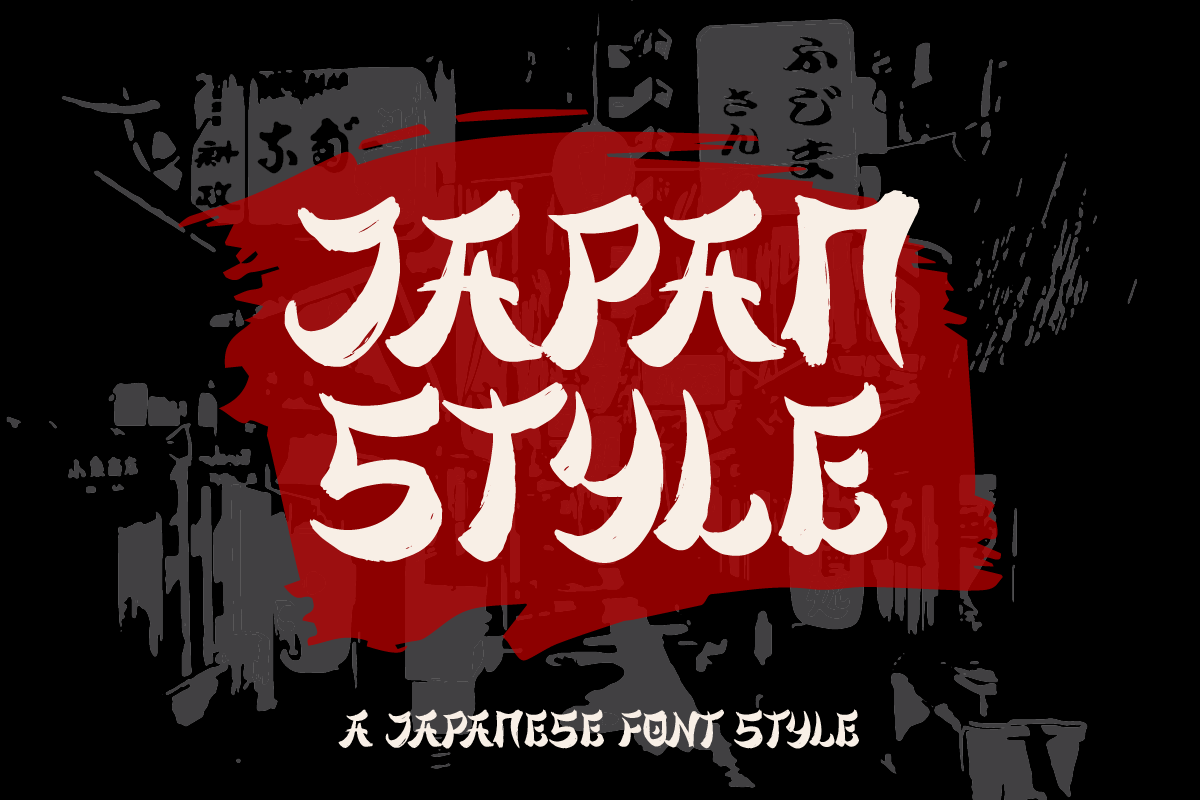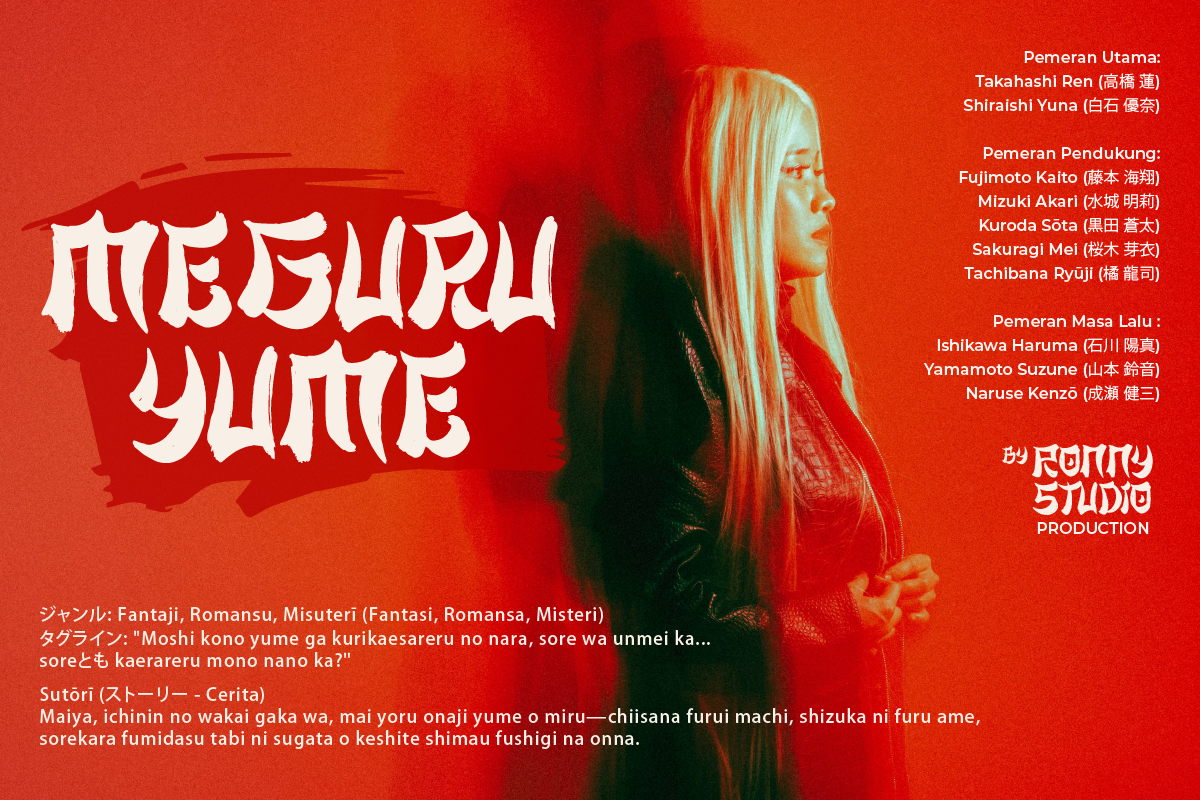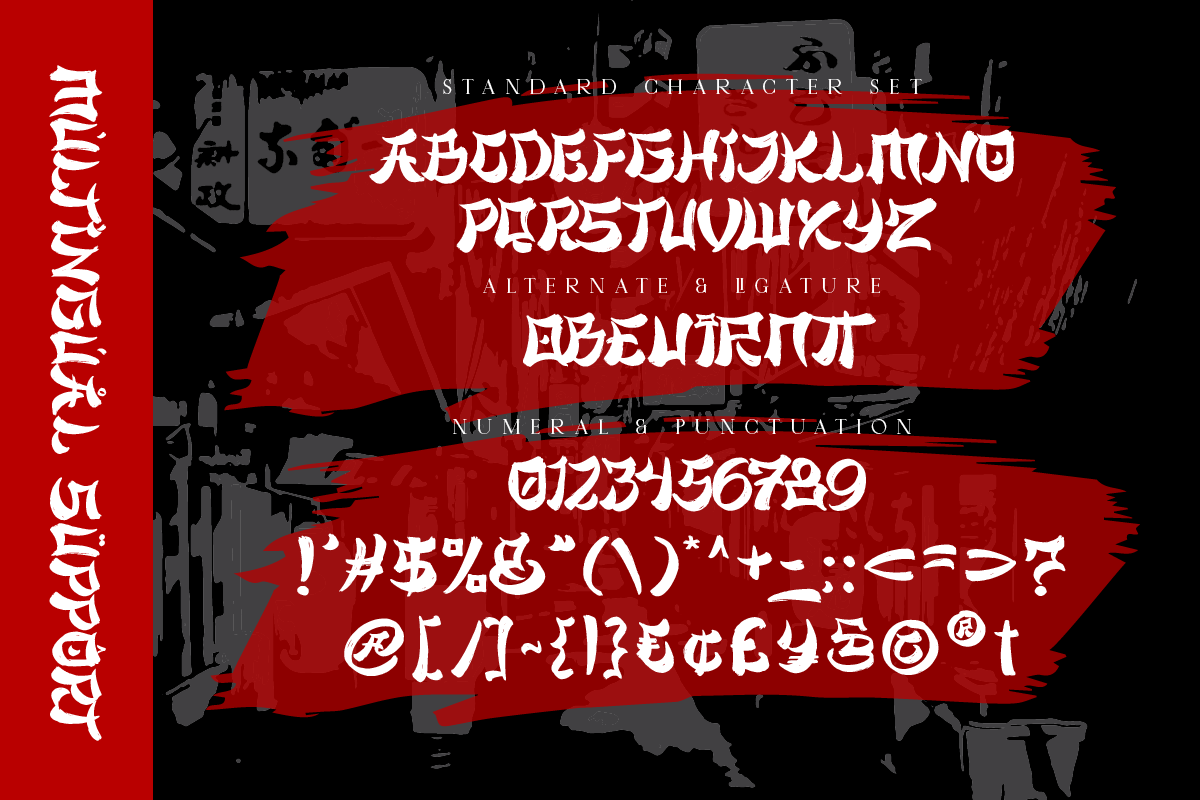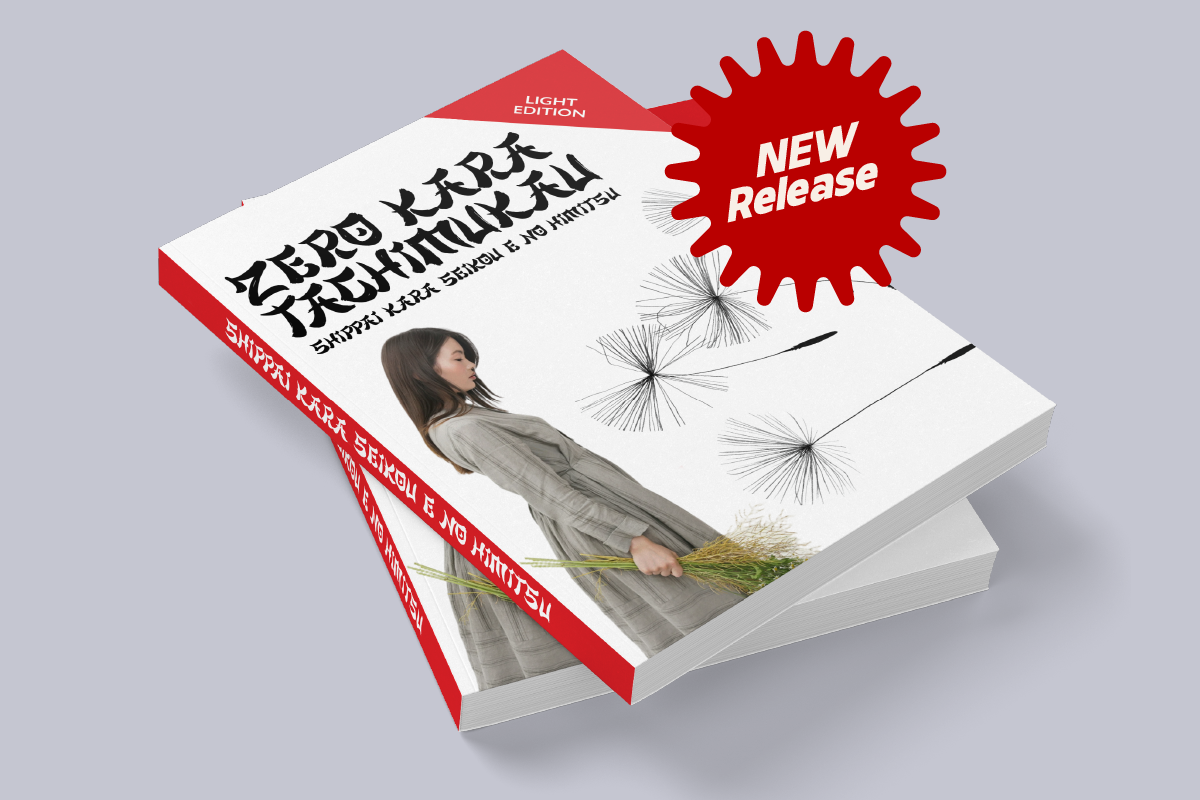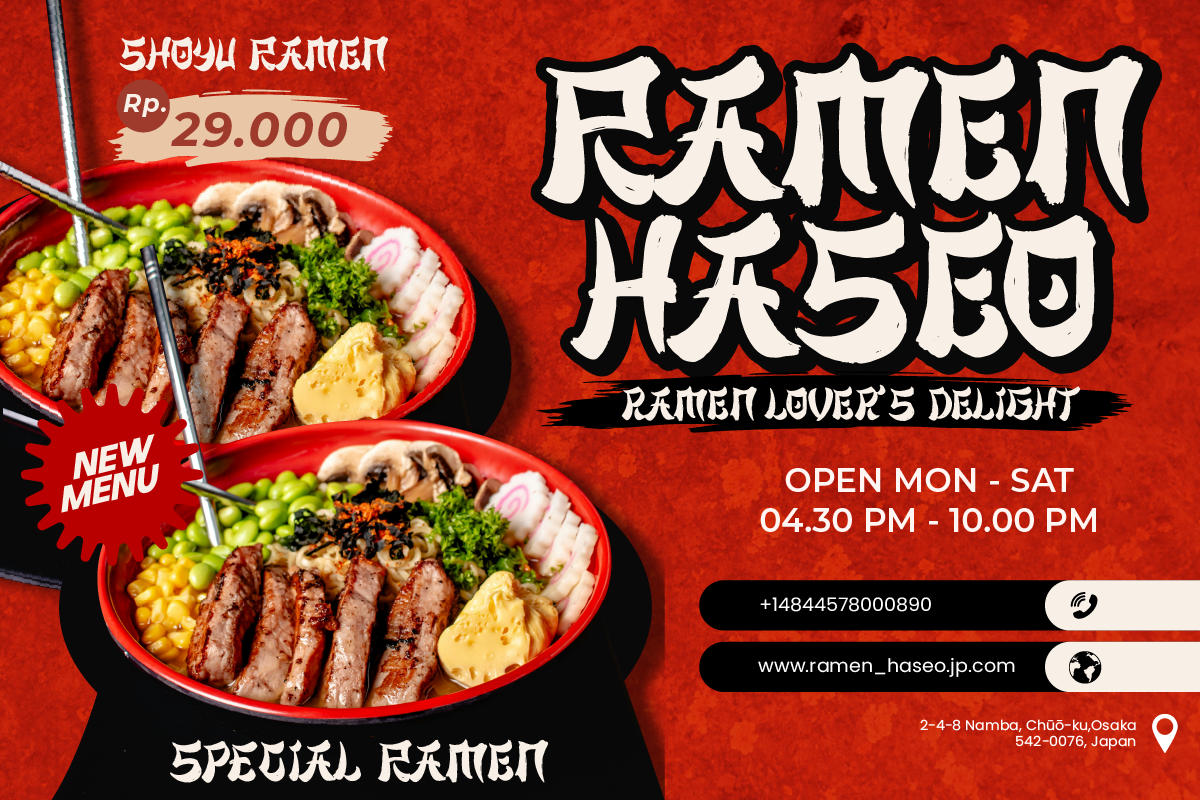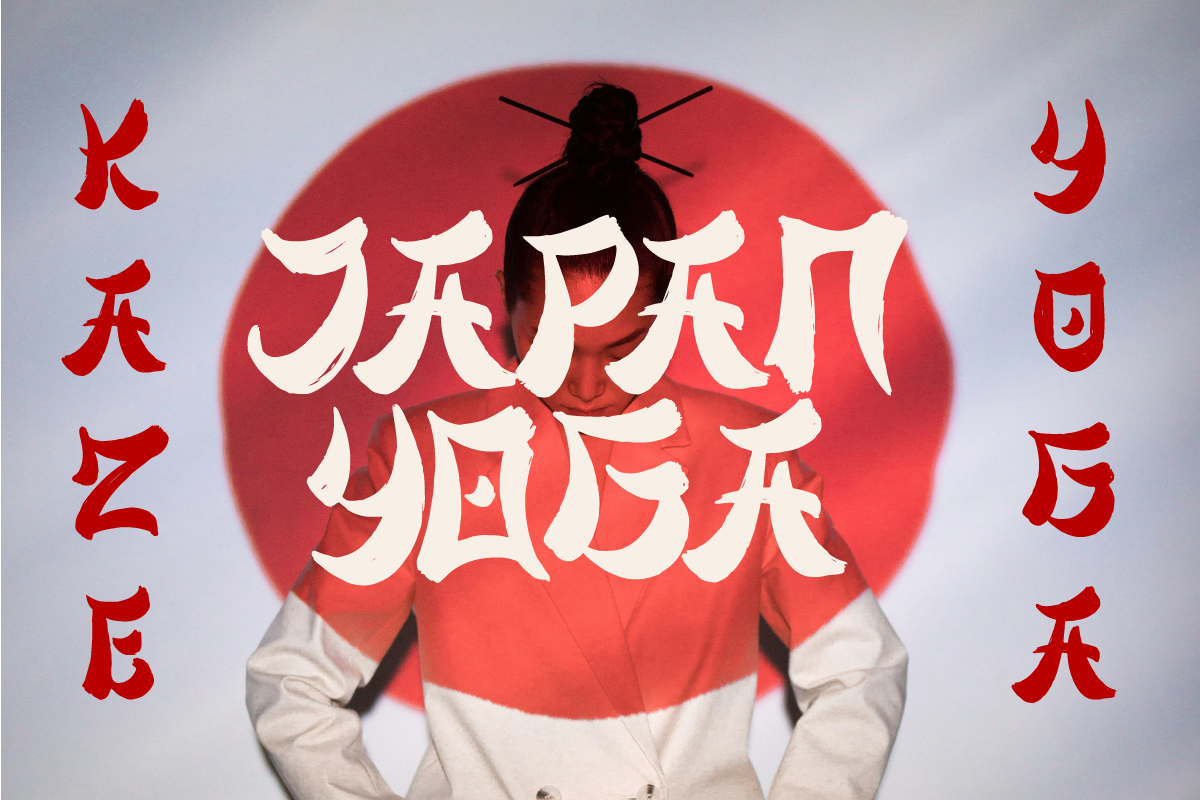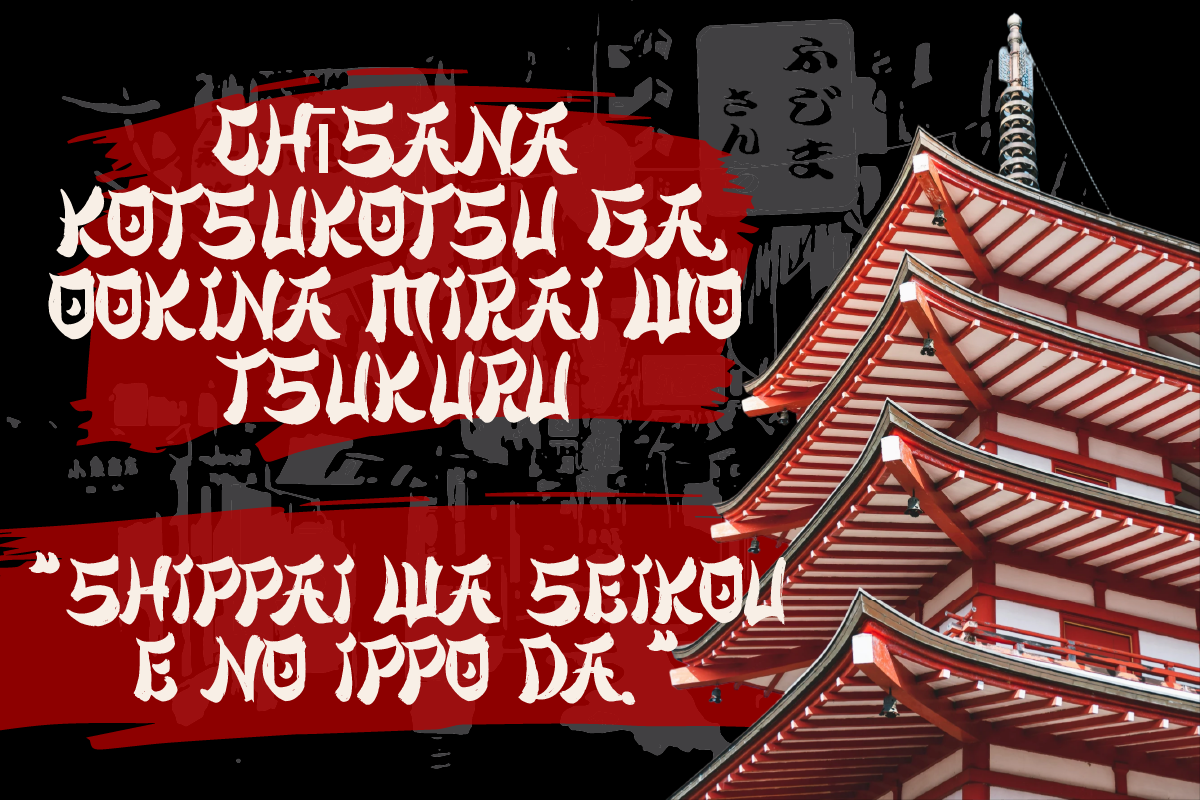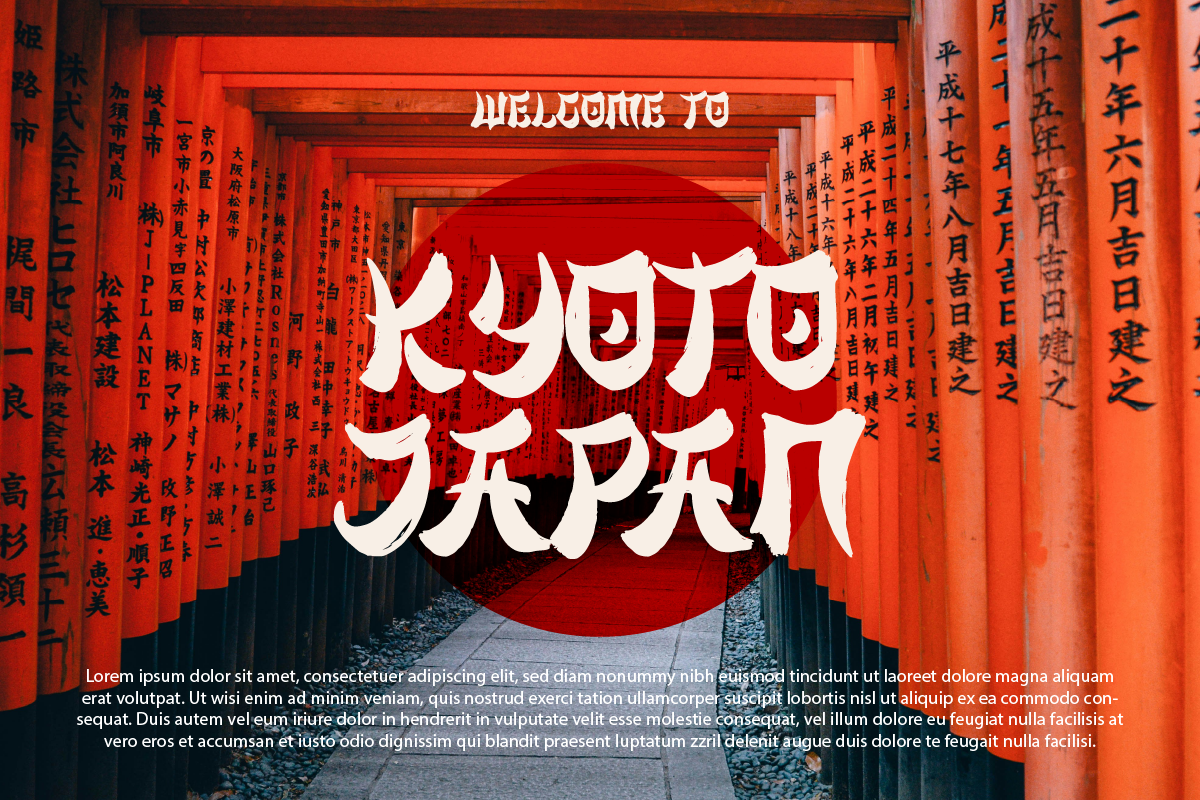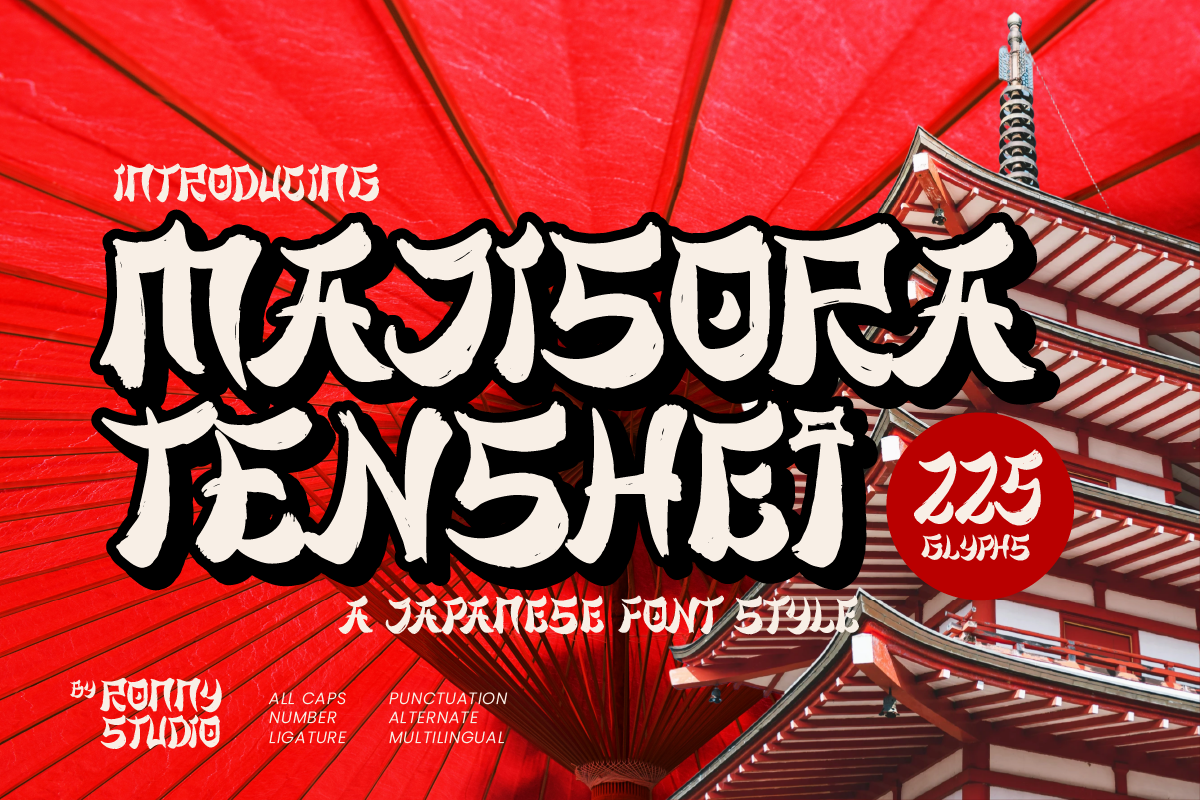
Majisora Tenshei Bold Japanese Font
Majisora Tenshei – Bold Japanese-Inspired Font for Modern and Traditional Designs
Introducing Majisora Tenshei, a bold Japanese-inspired font that brings the elegance and strength of Japanese calligraphy to modern design. Perfect for posters, branding, logos, packaging, and social media graphics, Majisora Tenshei combines traditional artistry with a contemporary edge. Its bold strokes and unique character shapes create a powerful visual impact for your projects.
- Bold Japanese-Inspired Style – Reflects the elegance of Japanese calligraphy with bold, confident strokes.
- Versatile Application – Ideal for logos, posters, product packaging, social media content, editorial layouts, and more.
- Uppercase & Lowercase Characters – Complete set of characters with multilingual support.
- Japanese-themed branding and visual identity projects
- Product packaging and label designs inspired by Japanese aesthetics
- Posters, flyers, and promotional materials with a cultural or traditional flair
- Social media graphics and digital content with bold, modern typography
- Editorial layouts and magazine covers seeking an Eastern-inspired touch
- Projects that combine tradition with contemporary design trends
Enhance your typography with the bold and elegant strokes of Majisora Tenshei, and bring a distinct cultural influence to your creative projects.